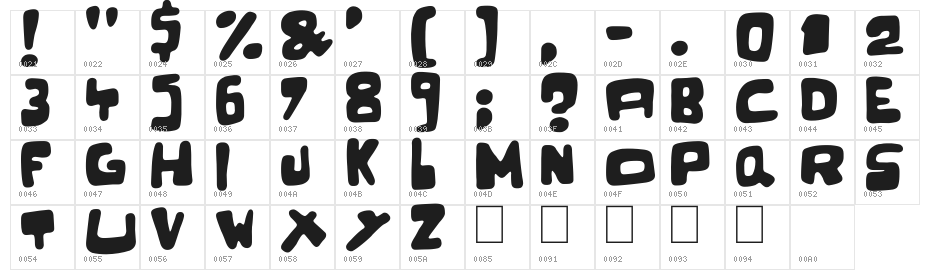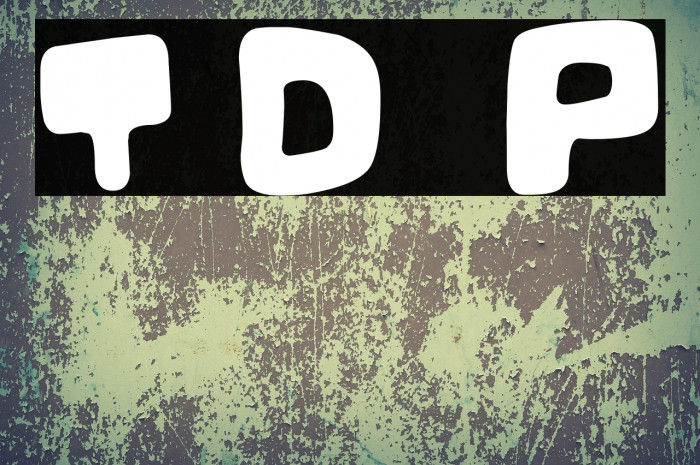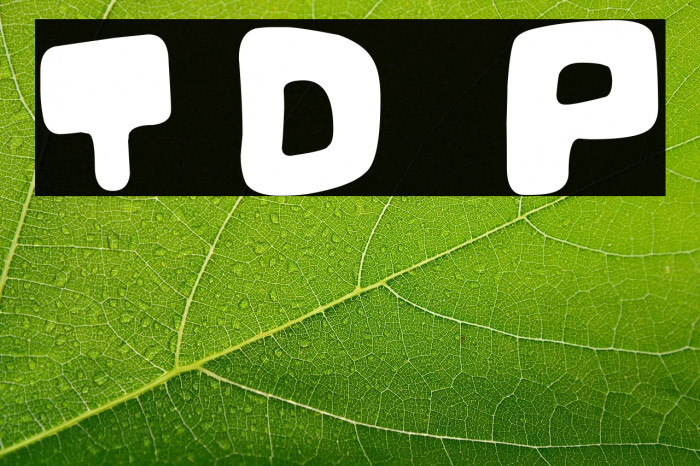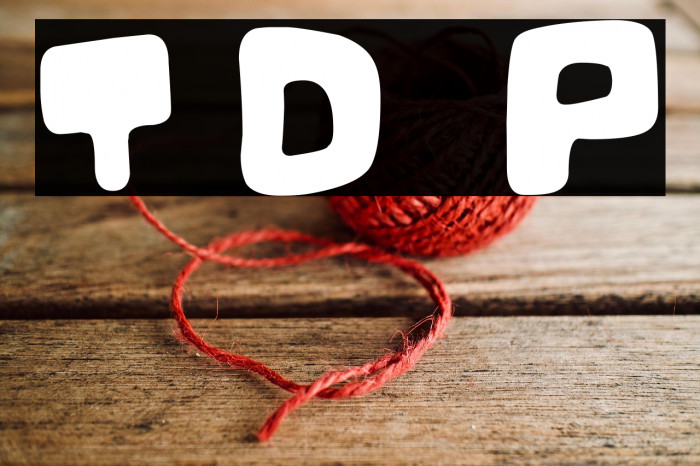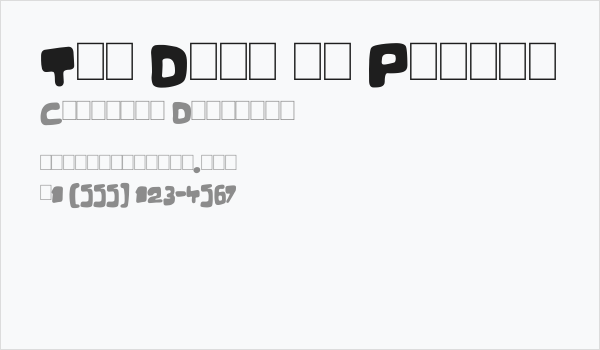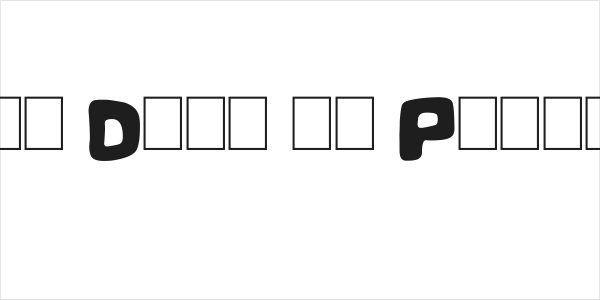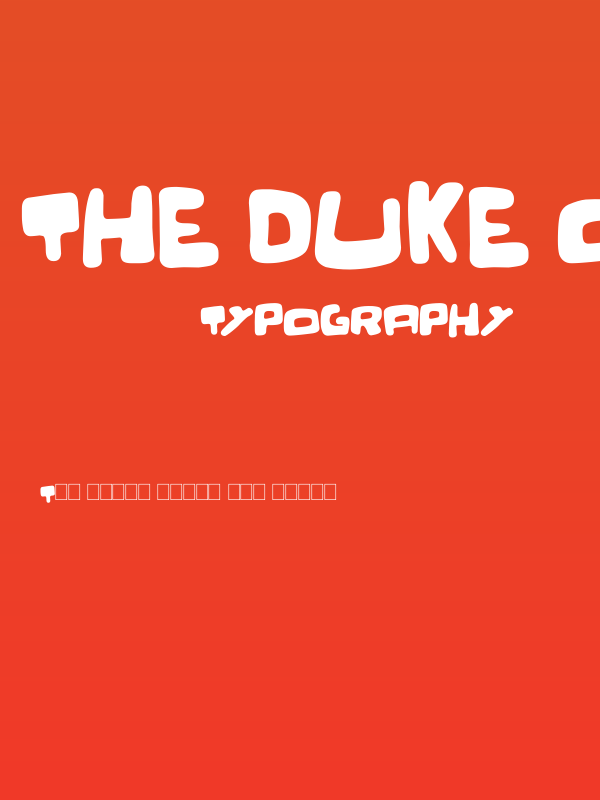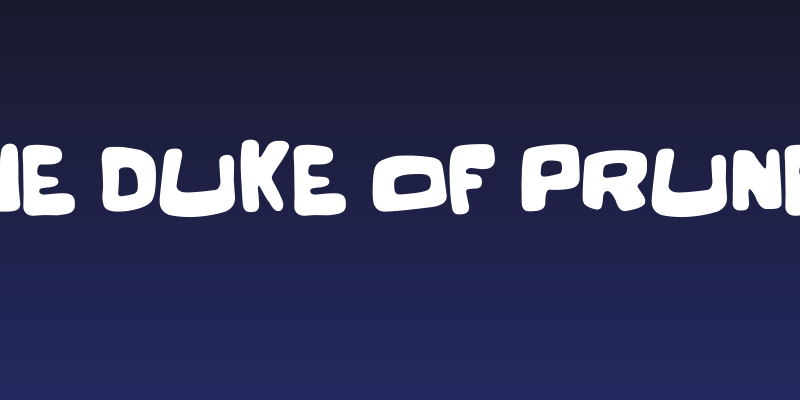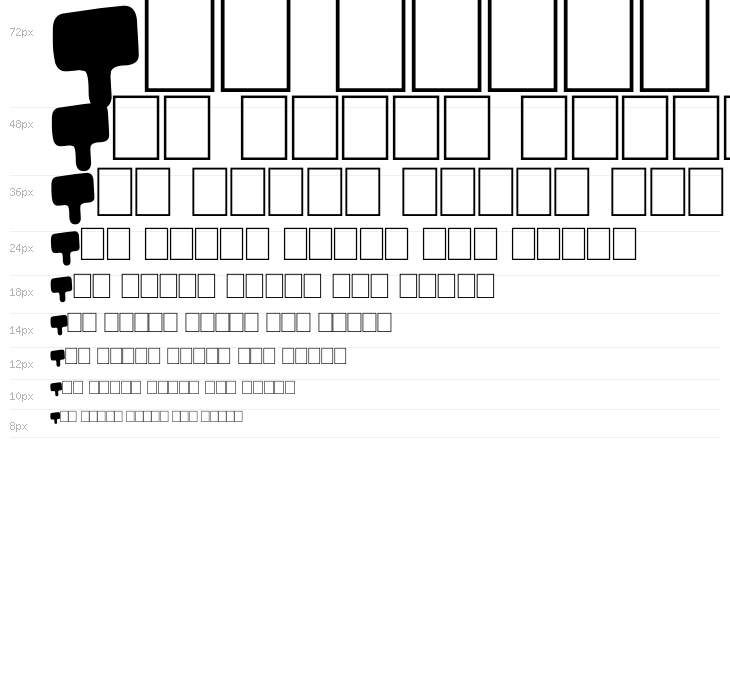
The Duke of Prunes Font
The Duke of Prunes Description
This font features a playful and bold design with rounded edges and a slightly irregular shape, giving it a whimsical and informal appearance. The characters are thick and substantial, conveying a sense of fun and creativity. The uppercase and lowercase letters maintain a consistent style, with the lowercase letters mirroring the playful nature of the uppercase set. The numbers and special characters follow the same bold and rounded theme, ensuring uniformity across all glyphs. This font's unique style makes it stand out, ideal for projects that require a touch of personality and flair.
| Proposed Projects | Ideal for children's books, playful branding, posters, and creative projects. |